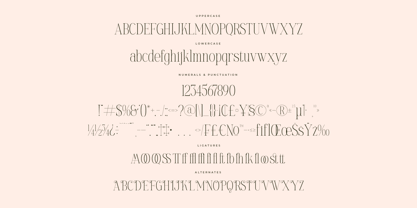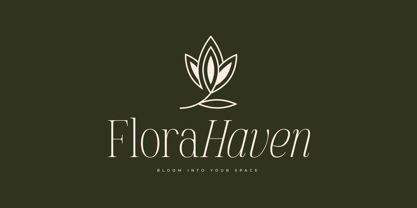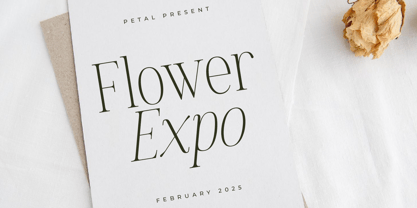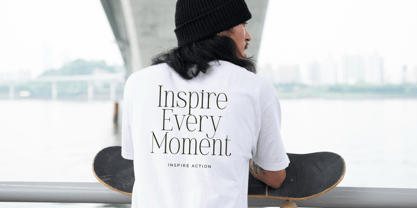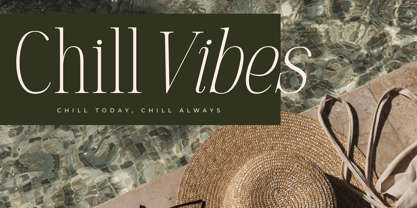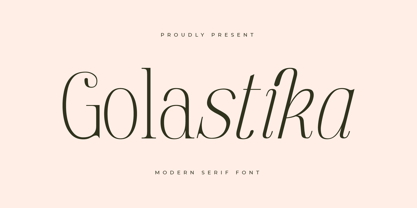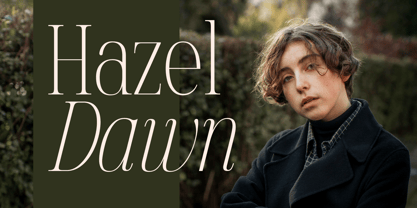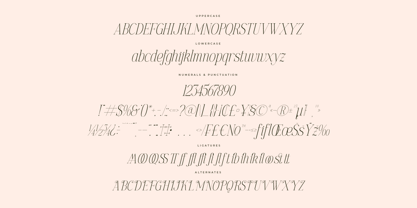
Golastika
The Golastika Font Family was designed by Heru Utama Putra and published by Letterena Studios. Golastika contains 2 styles and family package options. More about this family
Golastika – Modern Serif Font , from Letterena, is a Luxury Serif font, suitable for any projects such as: logos, branding projects, homeware designs, product packaging, mugs, quotes, posters, shopping bags, t-shirts, book covers, name card, invitation cards, greeting cards, label, photography, watermark, special events, and all your other luxury and beautiful projects that need a Luxury Serif taste.